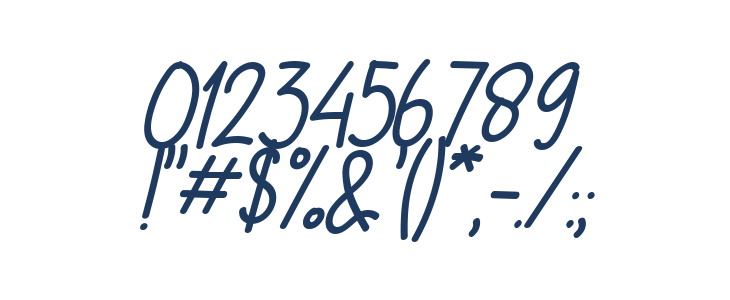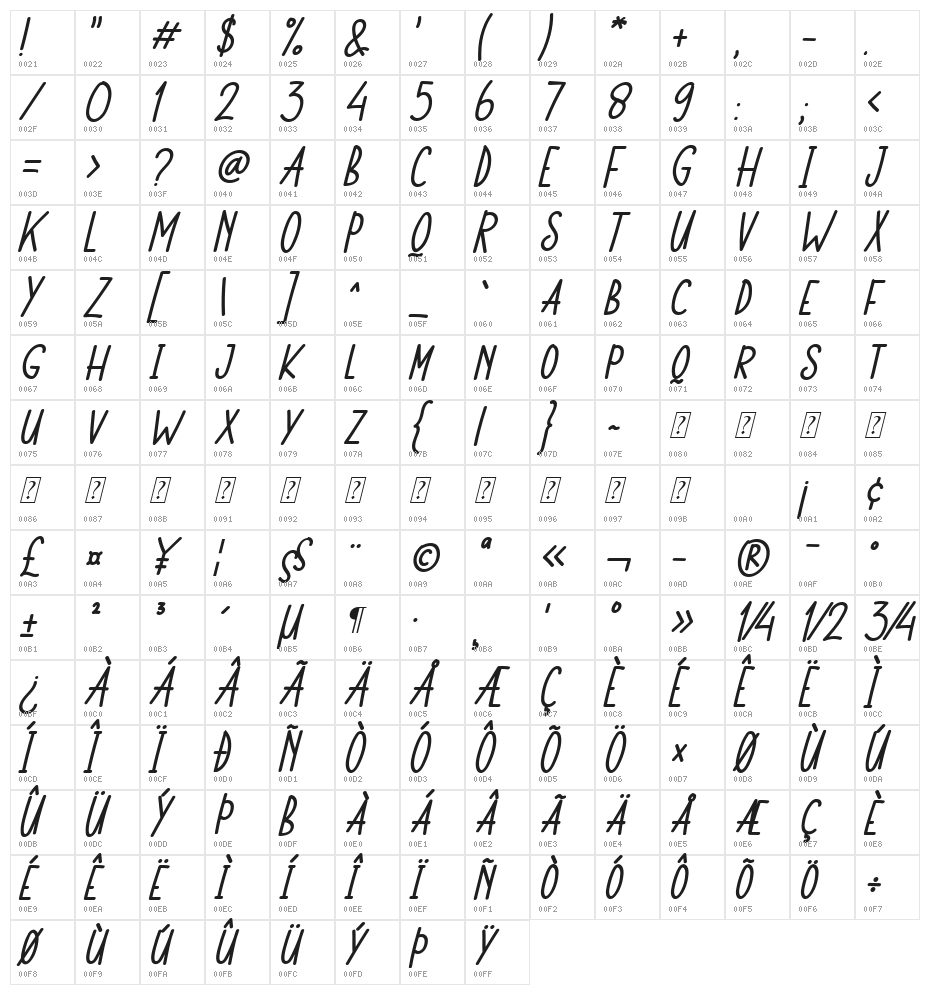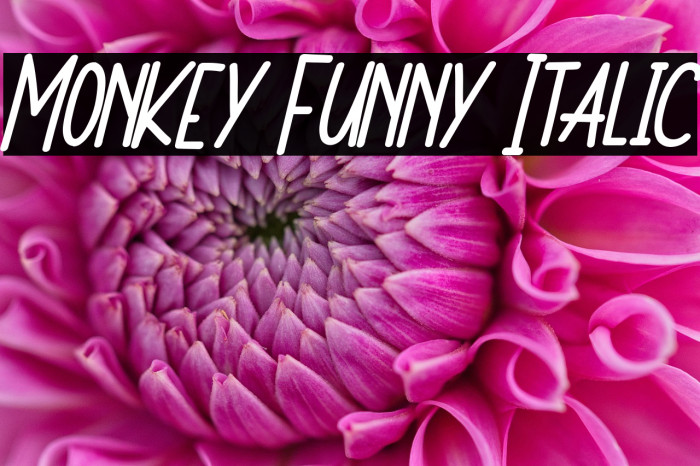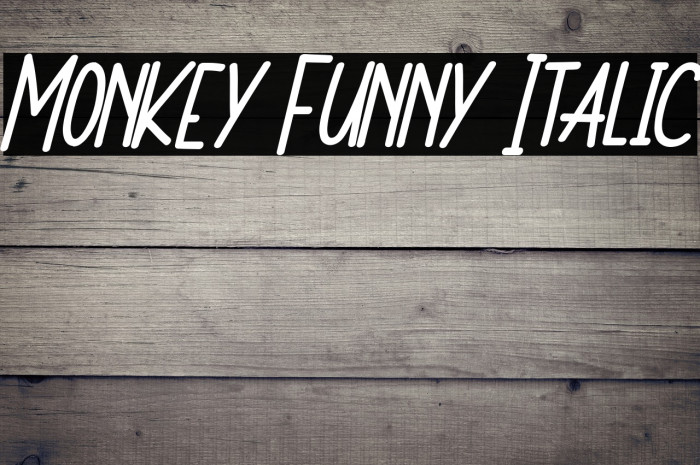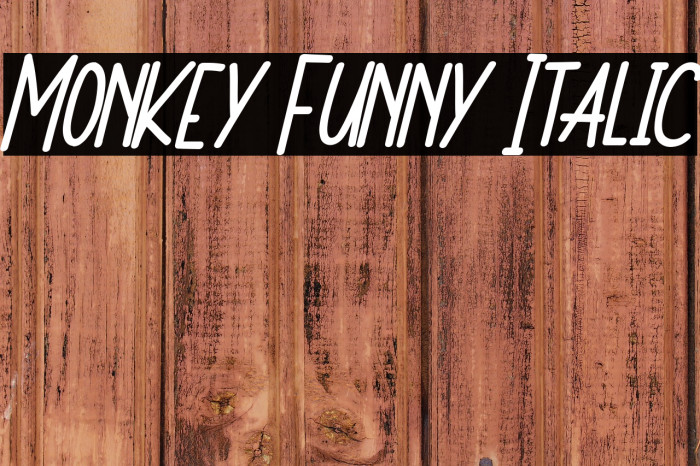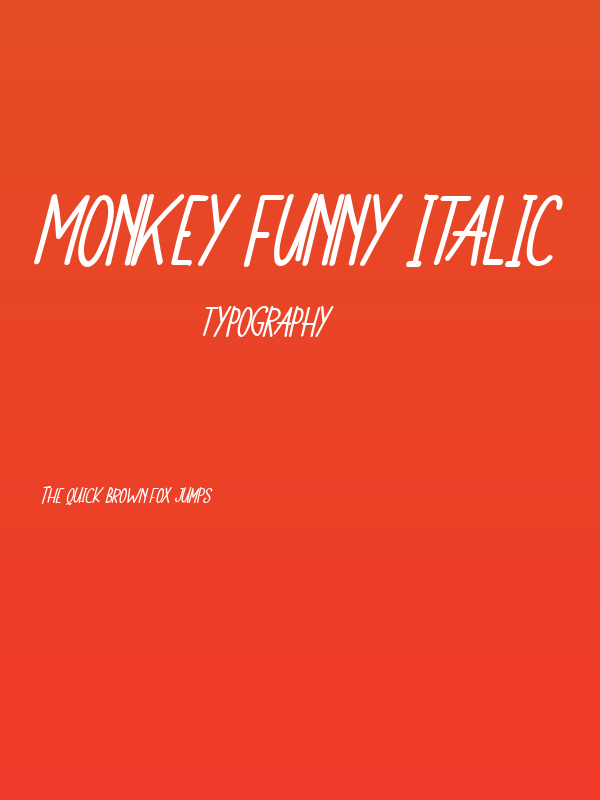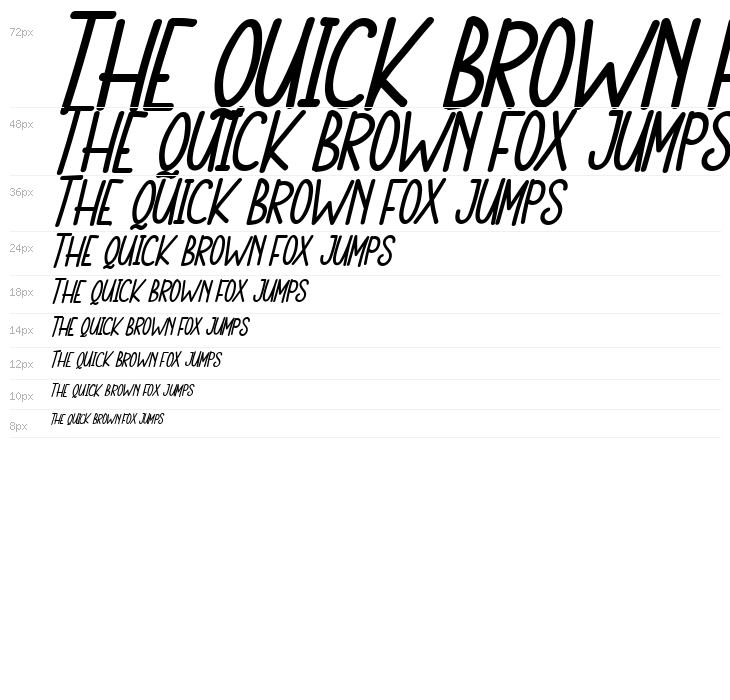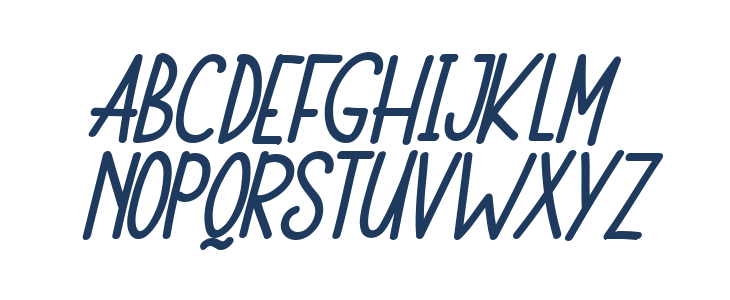
Monkey Funny Italic Font
Monkey Funny Italic Description
This playful and dynamic font features a handwritten style with a distinct italic slant, giving it a lively and energetic appearance. The characters are elongated and slightly irregular, adding to the whimsical feel. The strokes are smooth and consistent, with a medium thickness that ensures readability while maintaining a casual vibe. The font includes both uppercase and lowercase letters, numbers, and a variety of special characters, making it versatile for different uses. Its unique style is perfect for projects that require a touch of fun and creativity.
| Proposed Projects | Ideal for children's books, playful branding, greeting cards, and creative posters. |